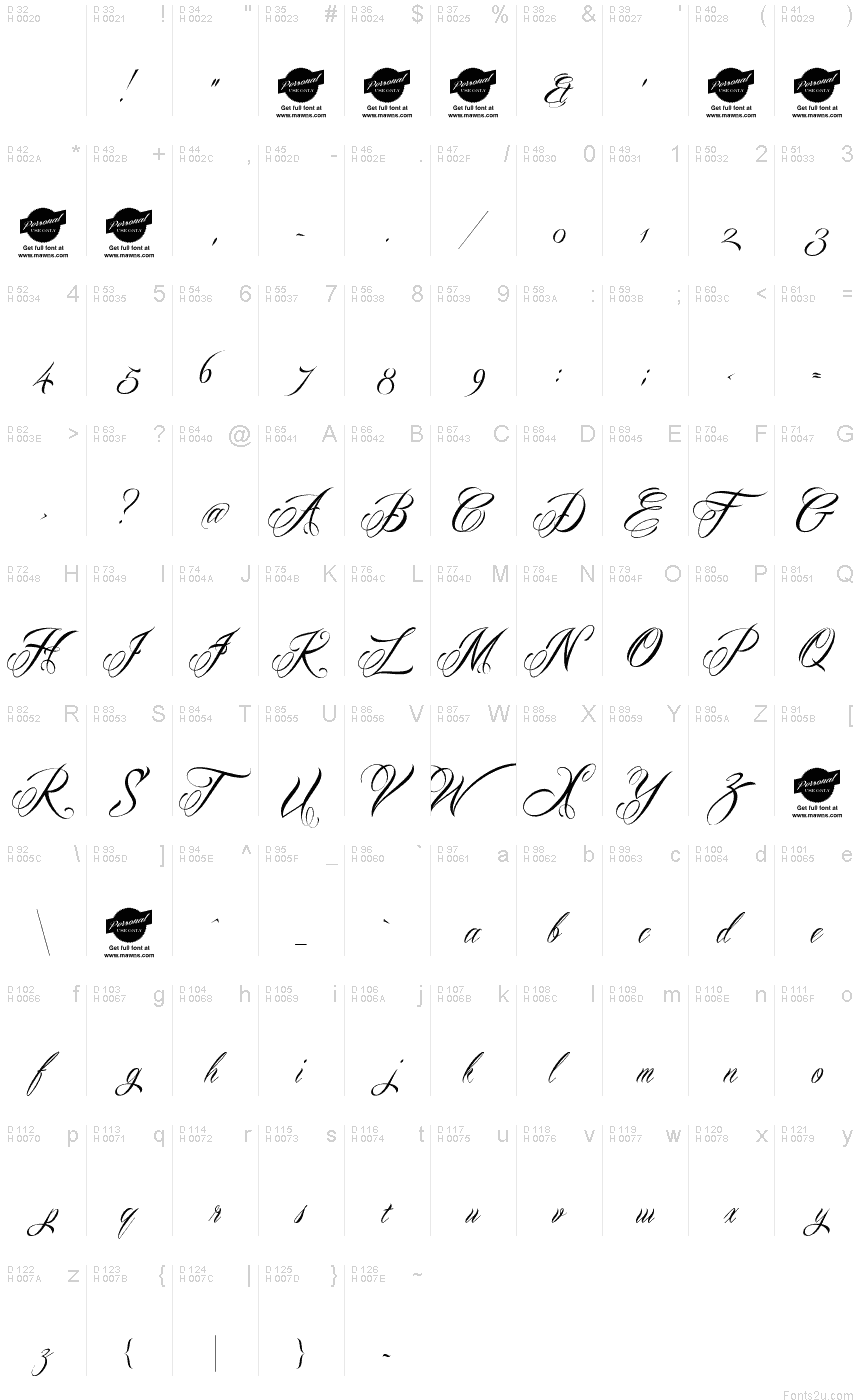
Mardian by Vicky Mardian and Måns Grebäck is a free calligraphic script with sweeping capitals and pronounced thick-thin contrast. Long entry strokes and looping tails extend far beyond the letter bodies. The effect is lavish and highly formal.
Romance and ceremony are its clearest territory, making it apt for wedding invitations and event stationery. Fashion packaging and beauty branding can also draw on the slender curves and oversized flourishes for an elegant signature-like mark. Its theatrical penmanship also suits period-drama posters and editorial features about couture or luxury craft.